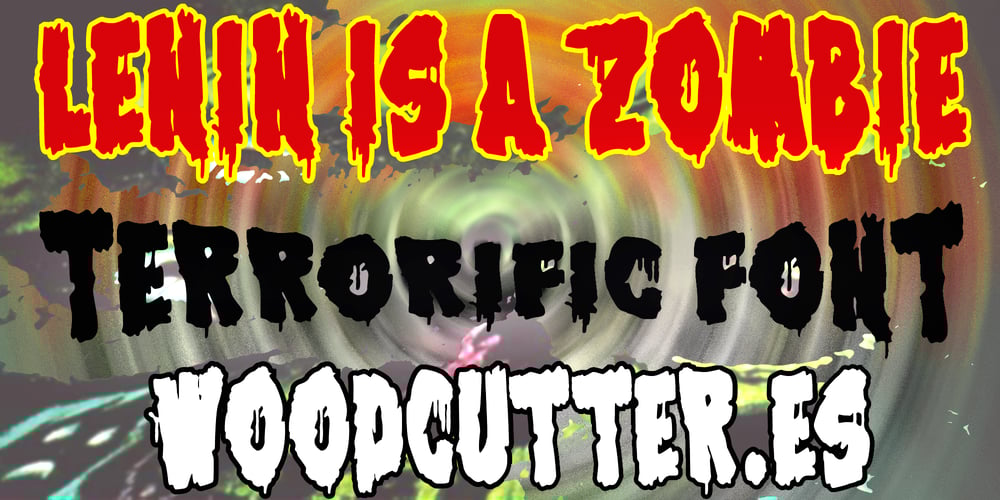
Lenin is a Zombie
Lenin is a Zombie font
Lenin is a Zombie Font Family was designed by Jordi Manero and published by Woodcutter. Lenin is a Zombie contains 1 styles and family package options. “Lenin is a Zombie” is a terrifying font that captures horror with blood-dripping uppercase letters. This typeface is perfect for projects seeking a strong and chilling visual impact, ideal for horror movie titles, Halloween-themed event posters, or any design needing to evoke a sense of fear and dread. With its dark and bloody style, “Lenin is a Zombie” ensures your message won’t go unnoticed, adding a macabre and spine-chilling touch to any graphic creation.